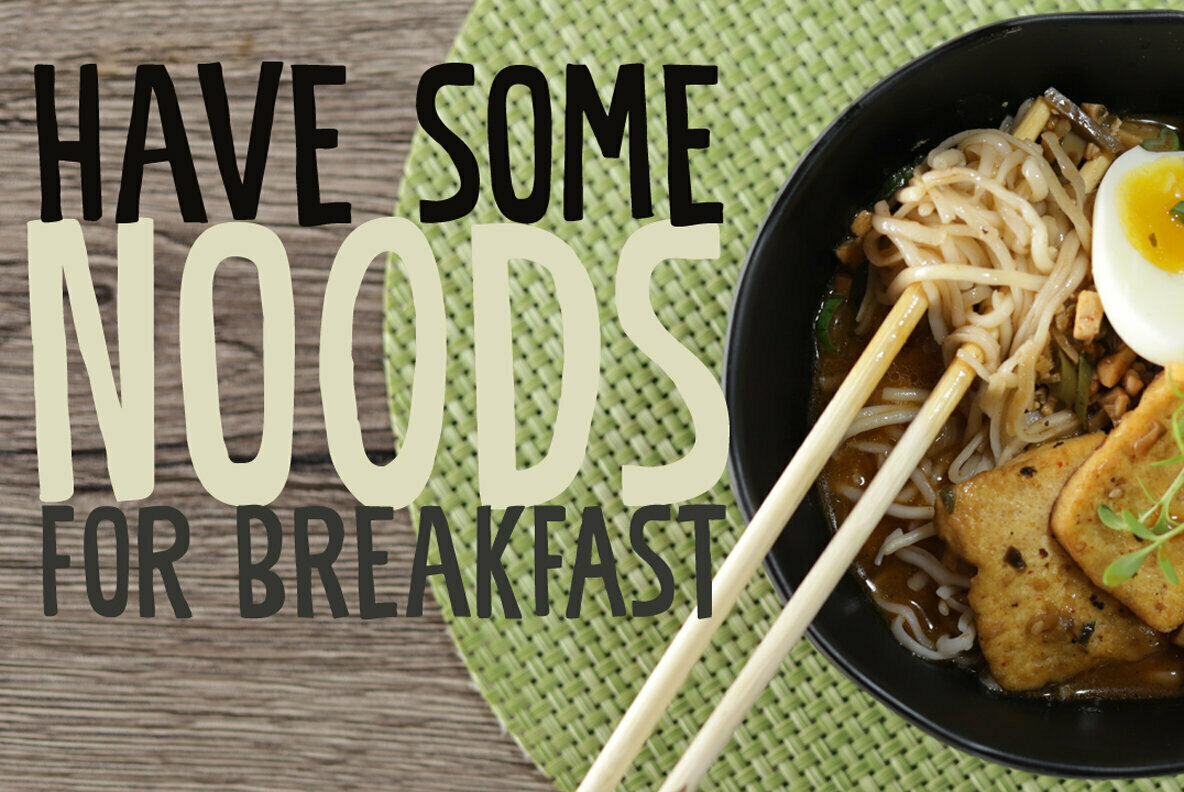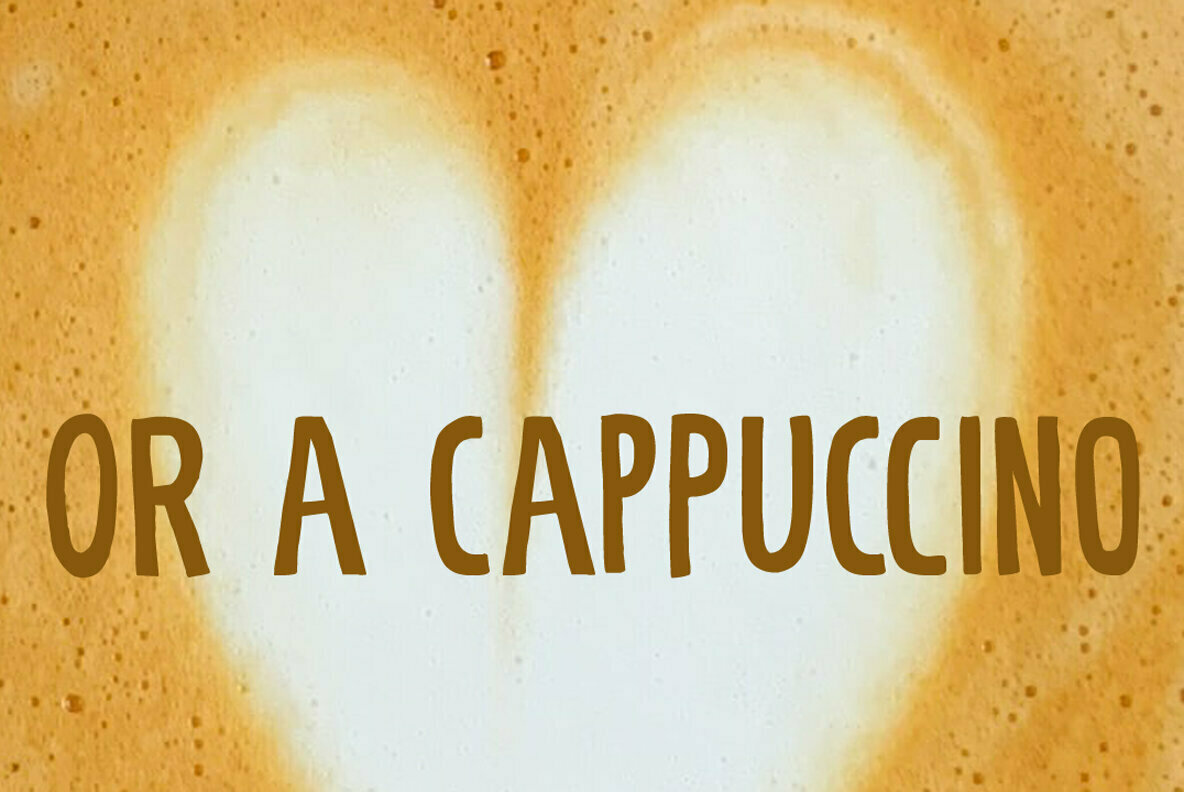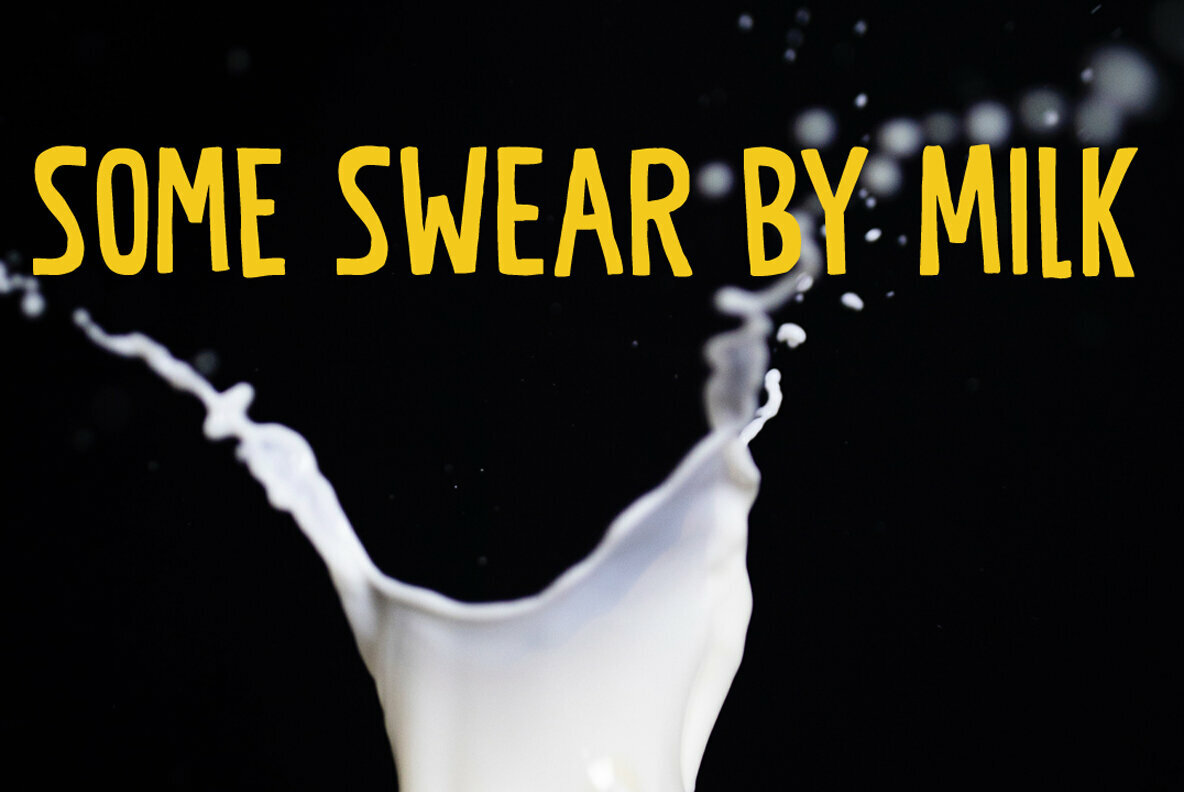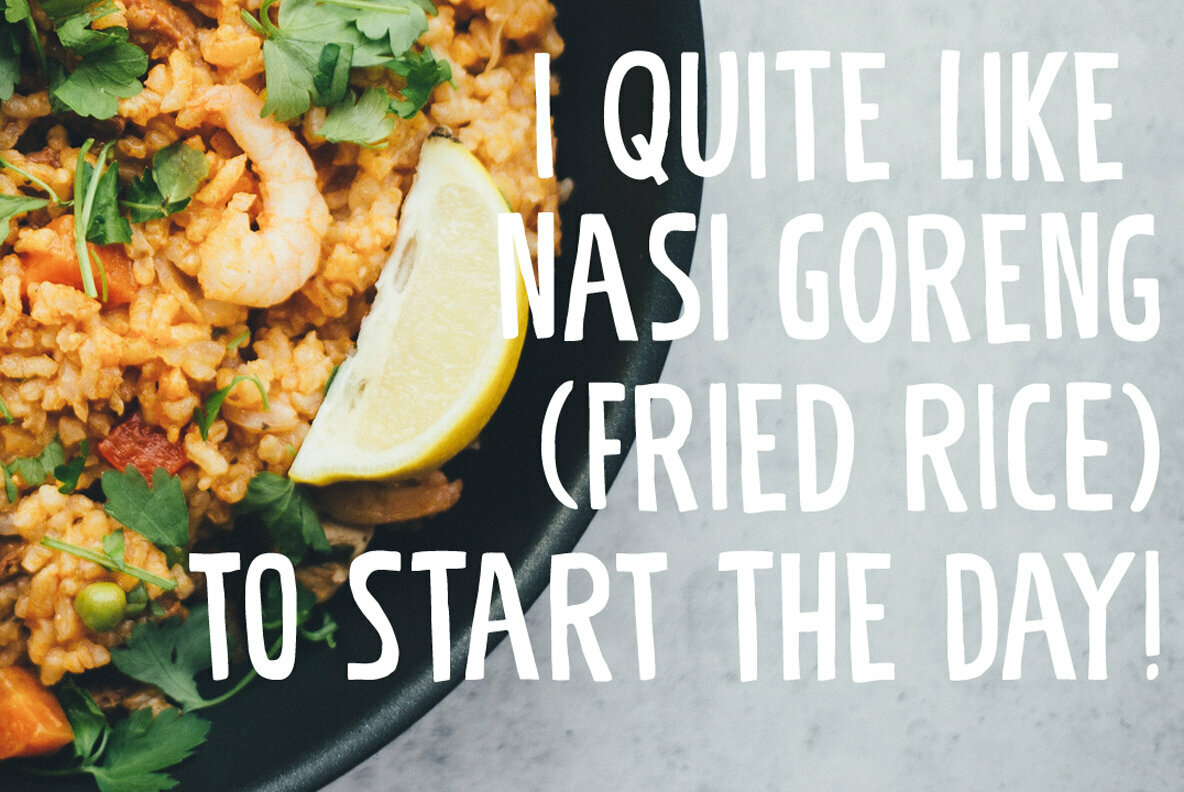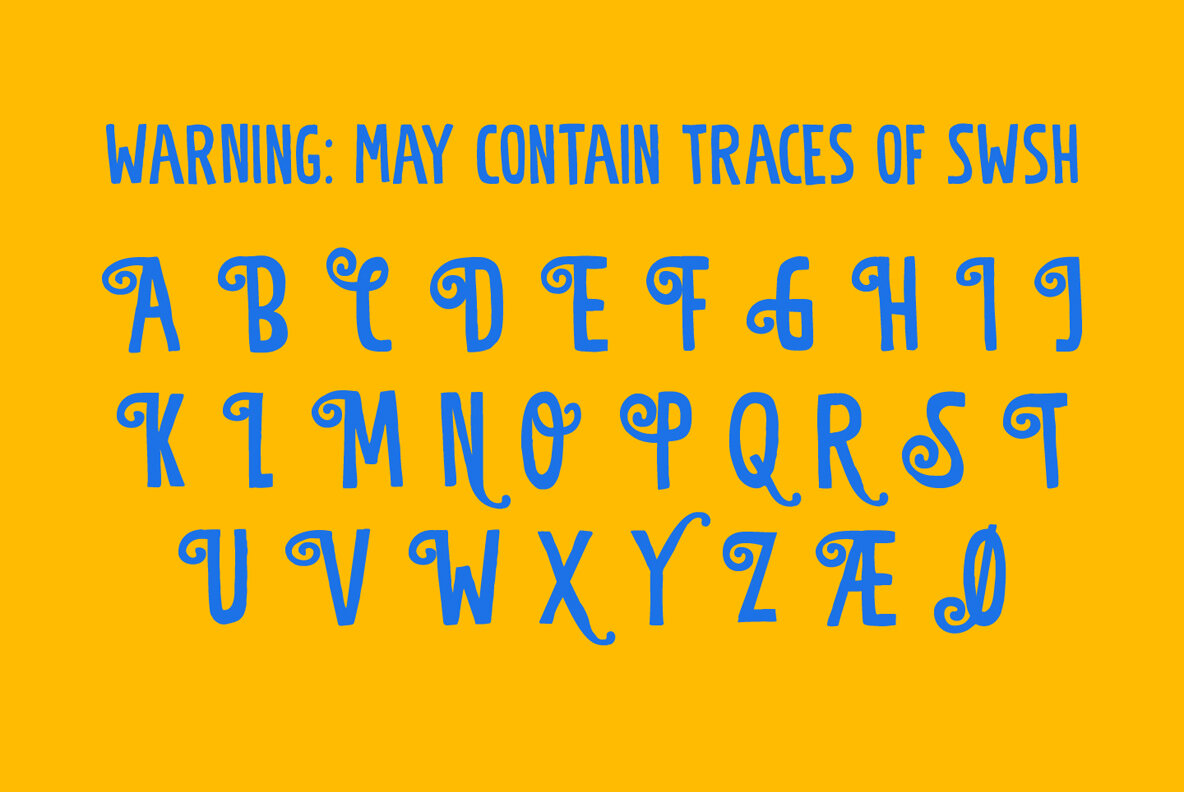
Power Breakfast Font
Power Breakfast Regular
Power Breakfast Italic
I am a firm believer in the fact that breakfast is the most important meal of the day. So, for the last 10 years (ever since I became a father), I have been serving my family a healthy breakfast. I live in The Netherlands, so the main portion of breakfast is bread, but I try to serve something ‘nice’ every day. Like strawberries, yoghurt with banana and brown sugar (not too much sugar!), oatmeal porridge or granola.
I myself like Indonesian fried rice (nasi goreng) for breakfast, but I am afraid my kids won’t eat that in the morning…
Power Breakfast is a handmade display font. Yes, it is wobbly, yes, it is uneven, but that’s what’s so darn good about it!